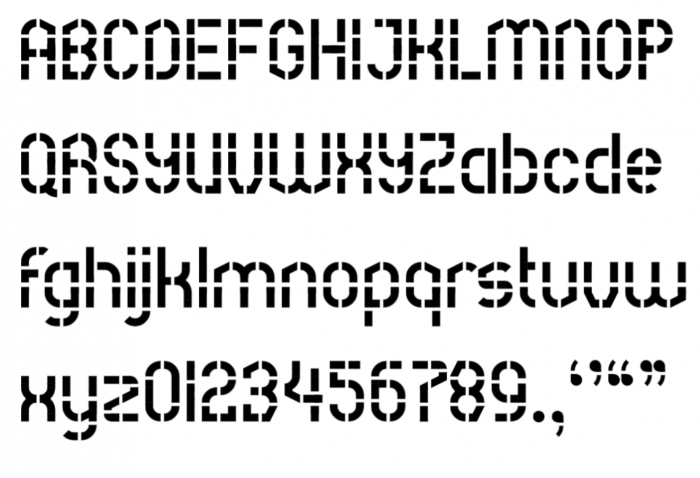
Nice one, I have been working on a very similar looking design, but never published or completed it.. Yours has much better (perfect) allignement of its incisions.
One of my 'Jurriaan Schrofer' letter recreations also has a similar style!
But yeah, cool idea u have there!